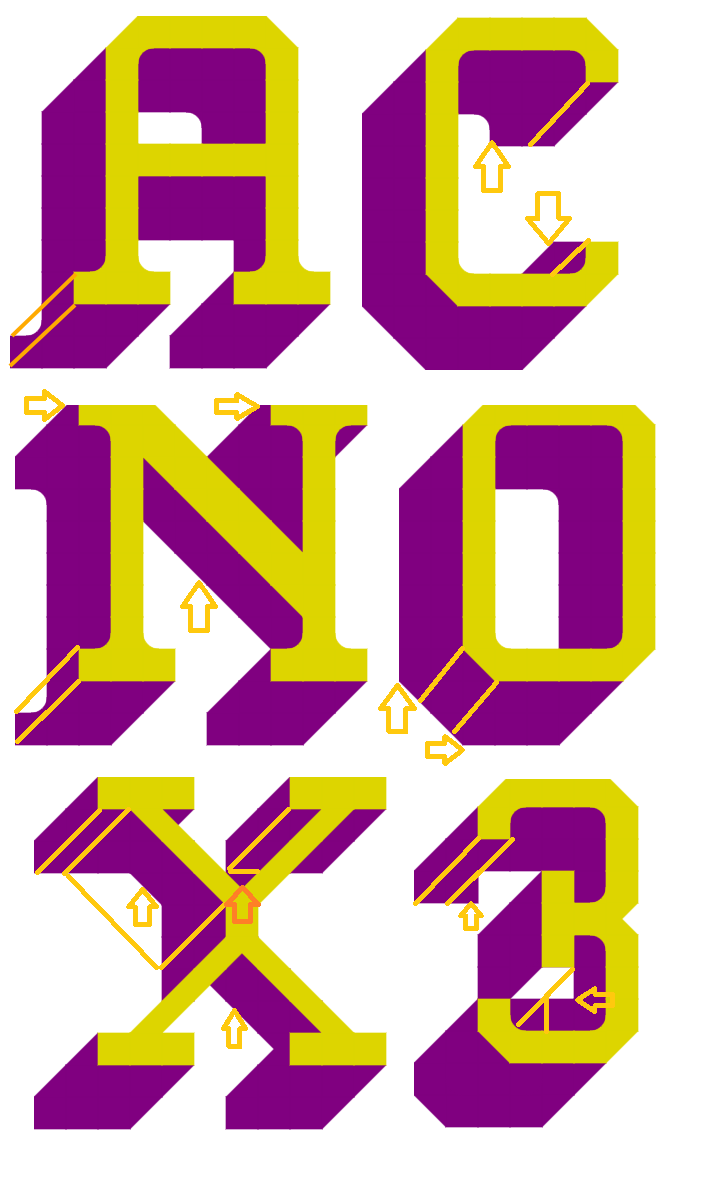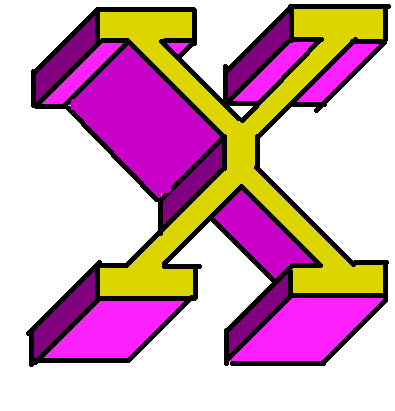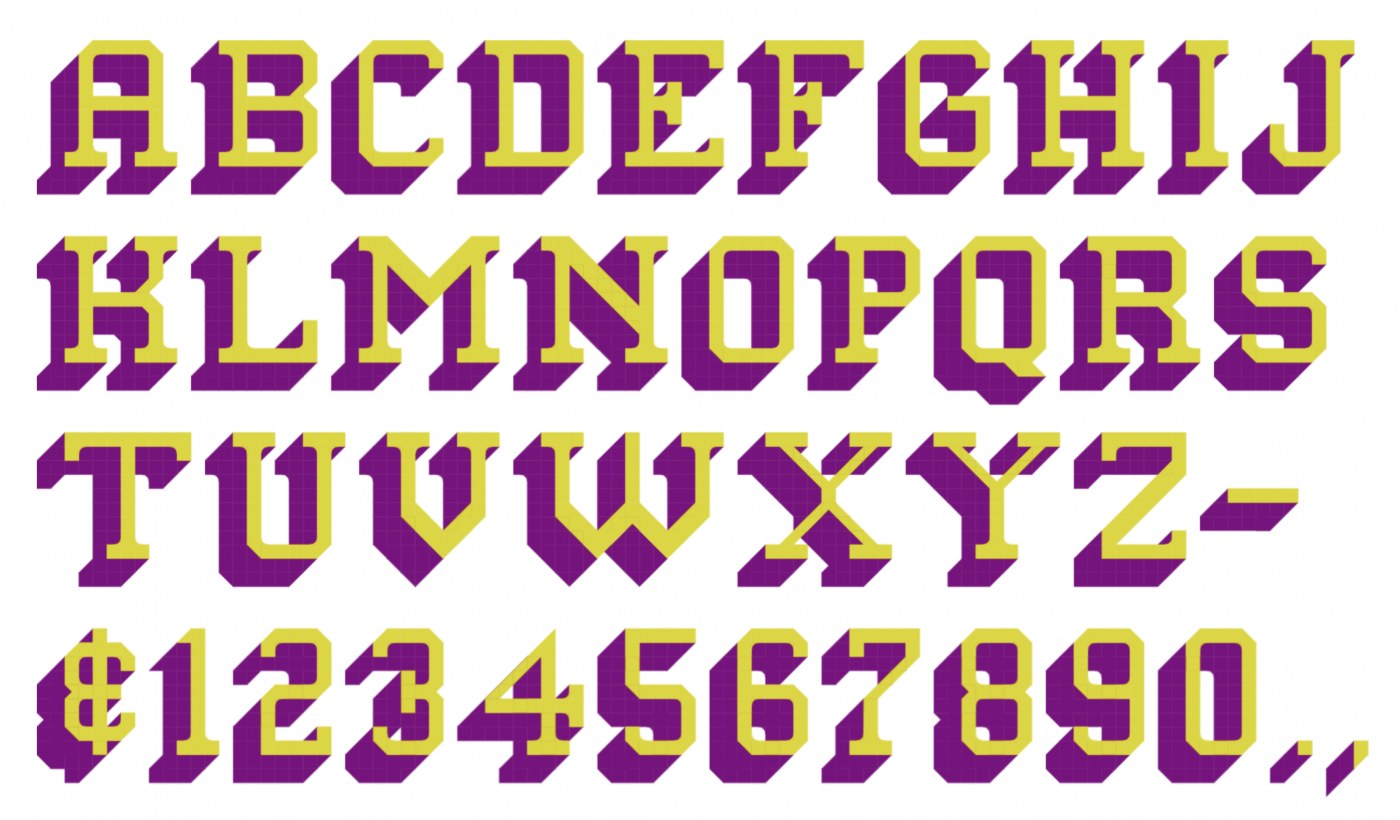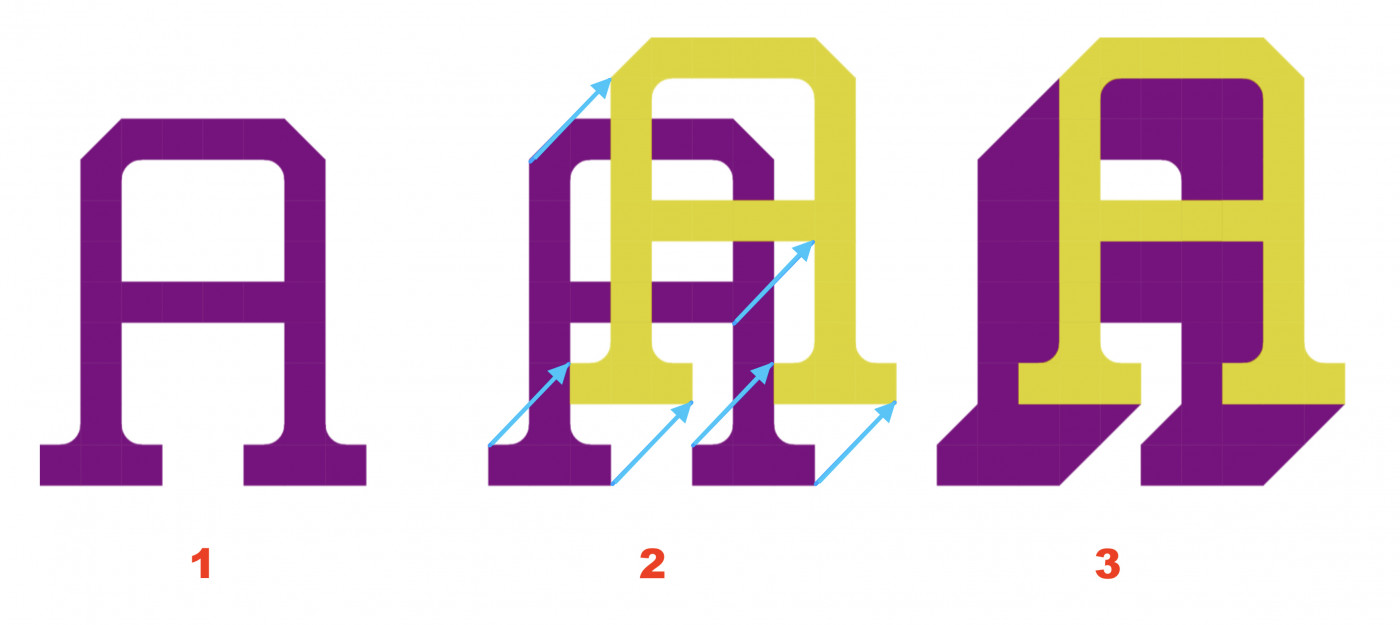
I don't want to be mean, but you clearly can't see the 3rd dimension. Most of your letters are faulty, missing parts or have the wrong geometry. I suggest you try again!
Frodo7 said “You clearly can’t see the 3rd dimension”, which is wrong. You can clearly see it. It’s not invisible or obscured.
I already noticed those discrepancies you pointed out. They happen consistently, so I thought it was entirely possible that they were deliberate stylistic choices, not mistakes. Whether they are or not, I don’t really care. I was just expressing the absurdity of Frodo7 not being able to see the 3rd dimension. Perhaps what he meant to say didn’t translate very well from Hungarian.
I was reacting to the second sentence of both of you. The font as is, does not look "perfectly fine" to me. While it may be intentionally inconsistent, I doubt it.
I guess it would look better with either of the depths, just not with mix of various depths.
I agree totally with @Frodo7 and @Peter (Petruuccio). The font looks unfinished, and the supposed 3D effect isn't working for me. There's a lot of carelessness and lack of attention in the glyph construction, and the author could easily have fixed these shortcomings with a little more dedication... All this unless these obvious shortcomings in this aspect are considered "design choices," in which case I'd be quiet. I remember some of my fonts, created before FS enabled the use of color, where I included suggestions in the description for modifying it to achieve that capability (adding color and a 3D effect) using a graphics editor... in other words, these fonts was already designed for the 3D effect that color would provide later. In short, this kind of thing is work that should be done first and well, IMHO.
@Peter (Petruuccio): Thank you for helping me out. I was ready to illustrate what was wrong with the 3D effect, but you did it sooner. Google says it's an oblique projection, perhaps the cavalier version. The front face remains undistorted.
@TH3_C0N-MAN: I don't understand you. Given your good track record of creating nice fonts, how can you not see the issue with the 3D projection? Your argument that they are "deliberate stylistic choices, not mistakes" is utter nonsense. What would help the designer (Chris Burgess) more: pointing out the defects of his execution, or telling him that "the font’s perfectly fine"? Think about it.
Thank you all for the comments I am getting on this font. Constructive criticism is welcome. I know I am not a great font creator and I never compare myself to others. I will work on what has been shown to me.
Surely you are aware that art is subjective. You didn’t know the intentions of the designer. You assumed they wanted to achieve a technically accurate projection. Why? Even the most prominent designers on this website almost never achieve technical levels of accuracy in their geometry. They are constantly using tricks to elicit their intended effect, regardless of how technically inaccurate it makes the letterforms. So that’s why I didn’t see the “issue”. I was shocked that you so quickly chose to interpret the font as having defects and concluded that the designer needed help. I actually considered the possibility that you’d been hacked, because only an imposter could speak so carelessly.
To me, the broadening diagonal edges on characters like C are reminiscent of the way light scatters in a humid atmosphere the further it gets from the source. I think it looks great, and it would be a shame if it was changed to be technically accurate and boring. We will always have plenty of technically proportional fonts, but we will never replace the unique touch of this designer. We do not know that the designer intended for the back faces to have exactly the same shapes as the front faces. For all we know, the back faces really are supposed to morph. And if they are, the font is richer because of it.
Furthermore, even if you were certain that a font contains legitimate defects, I really doubt you are helping by blurting out that most of their work is bad and telling them to do it all again. If I received your exact initial message, I would feel extremely discouraged. I understand that you were trying to be helpful, and attempted to soften it by saying you didn’t want to be mean, but it didn’t come off that way to me. It’s like saying “I’m not trying to be mean, but you’re fat. Do better”. Even if you had good intentions and wanted them to be healthier, saying it like that is most likely going to do more harm than good.
I could easily accuse you of making “faulty” fonts, but I would rather assume the best in you. For instance, in Chernobyl Chill, you had an unusual situation where the shapes of Д and Л were in completely different styles, but I didn’t assume it was a defect. I said I found it interesting. And on the chance that it was a mistake, I asked if I could provide suggestions. Upon seeing that you were wiliing, I also asked you why the diacritic in Ў was different to the one in Й. Again, even if it was a mistake, I didn’t just blurt out that it was objectively wrong.
@TH3_C0N-MAN: Your argument - although very detailed - doesn't hold much water. Saying "art is subjective" and "the intentions of the designer" are lame attempts to relativise the issue. We know the intention of the designer, because he wrote it down for us: " I would try a 3D version of my State font". He succeeded partially, and there are a number of things to improve on his 3D font. If you still don't see the issues with his faulty oblique projection, I'm sorry, we have nothing more to talk about. I can't explain the colours to a colourblind.
You said: "If I received your exact initial message, I would feel extremely discouraged." But my comment was not for you. Yet you have jumped on it with barely concealed passion. I'm sorry if my language was too direct for your taste. It's a cultural difference: we, in Eastern Europe, speak plainly and to the point. As the English say, when I see a spade, I call it a spade. I prefer to tell the truth directly, without sugar coating, even if it's unpleasant. It is much better than your "gentle parenting" approach (telling him the font was perfectly fine).
@lvqille backupukcab elliqvl: I hadn't thought about adding shades.
If the interior were mere angles or intersecting lines, the shades (or even a third color) would be a nice enhancement. Unfortunately, many interiors are curved, so blending shades or colors from one plane to another effectively will prove difficult.
@Goatmeal @lvqille backupukcab elliqvil I can try and work on shading. See how it looks.
I have decided not to mess with shading this font. I'll leave it as is.